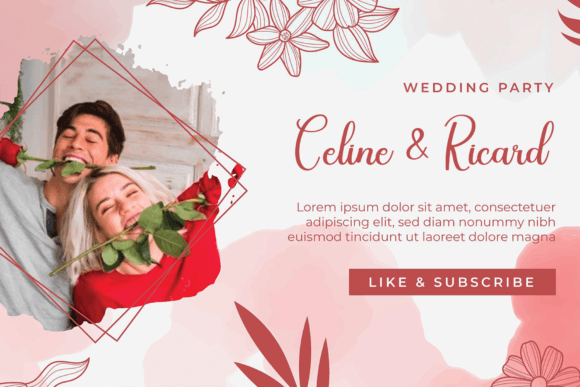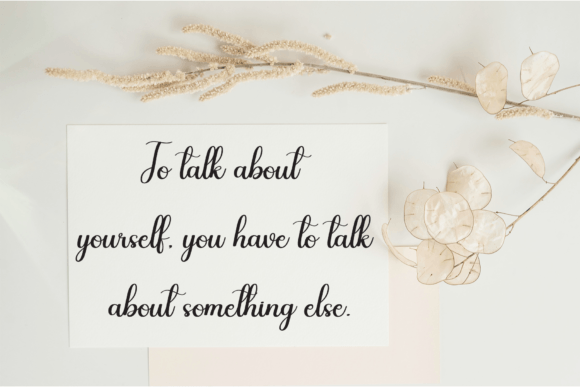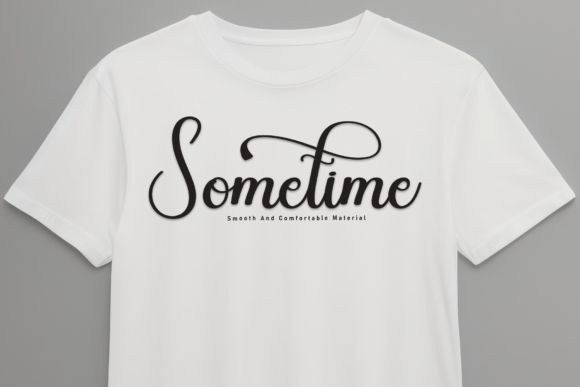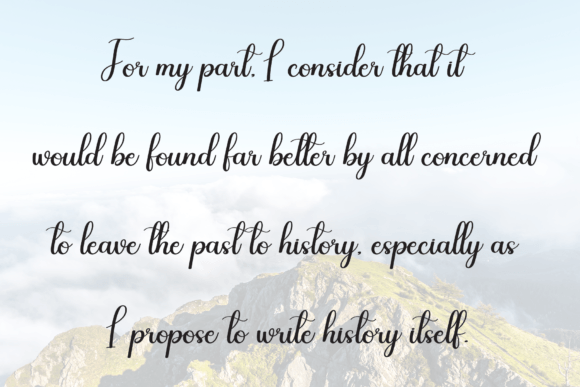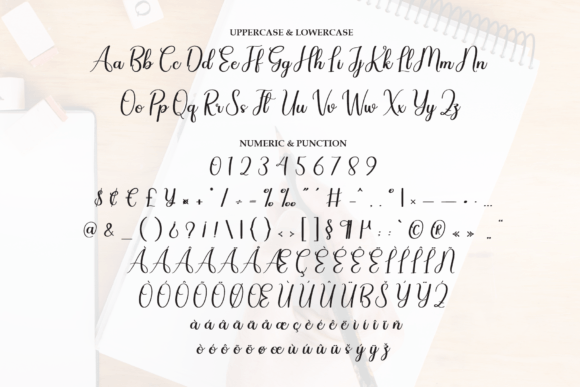
Unlocking the Magic of Handwritten Texts
Have you ever sat down with a cup of coffee, a blank sheet of paper, and a pen, waiting for the perfect idea to strike? For designers, those moments of creative spark are what drive us to push the boundaries of what’s possible. And sometimes, it’s not about the idea itself, but the way it’s expressed that truly sets it apart.
Enter the Autography Font, a charming handwritten font that brings a personal touch to any project. With its wide range of applications, from greeting cards to headlines, Autography Font is the perfect addition to any designer’s toolkit. Whether you’re looking to add a friendly feel to your next project or simply want to give your designs a unique twist, this font is sure to deliver.
As a designer, you know the value of a well-chosen font. It can make or break the tone of your project, and Autography Font is no exception. With its versatility and charm, it’s an essential tool for any designer looking to add a personal touch to their work.
Autography Font Key Features
- Font Size: The Autography Font family consists of multiple weights, ranging from Thin (100) to Black (900), providing versatility for various design applications.
- Unique Characteristics: Autography Font features a distinctive, hand-written style with subtle imperfections, giving it a personal and organic feel.
- Language Support: Autography Font supports a wide range of languages, including Latin, Cyrillic, and Greek scripts, making it a versatile choice for global design projects.
- Font Width: Autography Font has an average width, making it suitable for body text and other applications where readability is crucial.
Autography Font Review
Autography Font is a beautiful, elegant script font that’s perfect for creative projects and designs that require a touch of sophistication. I really like the way the letters flow together, creating a sense of continuity and cohesion. ✨ The font is highly customizable, allowing you to adjust the spacing, size, and style to suit your needs. This makes it an excellent choice for designers who want to create unique and personalized designs.
- Highly customizable, with a wide range of options for spacing, size, and style.
- Beautiful, elegant script design that’s perfect for creative projects.
- Works well in both digital and print designs.
- Supports a wide range of languages.
However, there are a few limitations to consider. ⚠️ The font may not be suitable for very small text sizes, as the lines can become a bit blurry. Additionally, the font may not be as readable in certain fonts or contexts, requiring some experimentation to get it right. Finally, some users may find the font to be a bit too ornate or fussy, which can be a drawback for those who prefer a more minimalist design aesthetic.
Overall, I think Autography Font is a great choice for designers who want to create beautiful, elegant designs. While it may have some limitations, the benefits far outweigh the drawbacks, making it a worthwhile investment for any design project.
Tips for Getting the Most Out of Autography Font
To get the most out of Autography Font, try using it for:
– Creating unique and personalized signatures
– Adding a touch of elegance to invitations or business cards
– Enhancing the visual appeal of digital art or illustrations
Autography Font is commonly used for:
– Signature designs
– Custom invitations and stationery
– Digital art and illustrations
Alternatives to Autography Font for Designers
Great Vibes is a beautiful, elegant script font that works well for titles, headings, and quotes. It’s perfect for adding a touch of sophistication to your designs.
Compared to Autography Font, Great Vibes has a more refined and polished look, making it ideal for formal and high-end designs. However, it may not have the same level of playfulness and versatility as Autography Font.